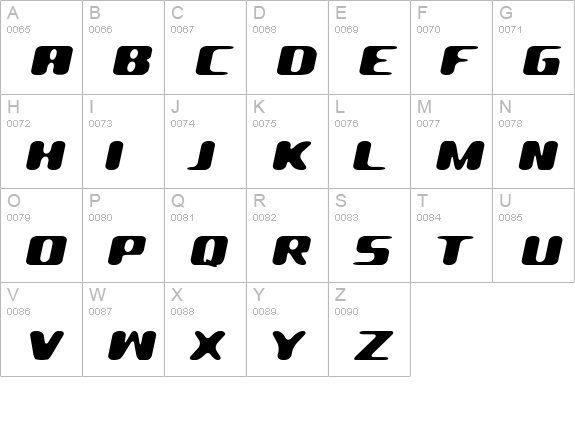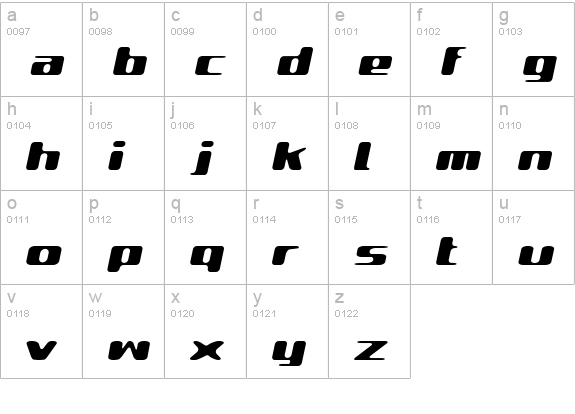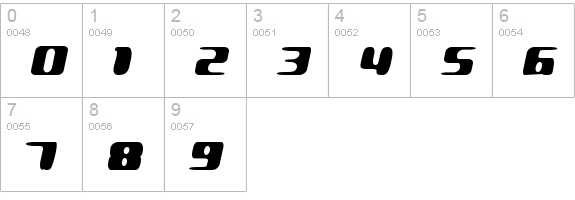
LBIlovely bold italic Alp Font Details
LBIlovely bold italic Alp is a strong, high-contrast, italic variant in the LBIlovely typeface family \xE2\x80\x94 well suited to headlines, attention-grabbing titles, and strong calls-to-action.
Introducing the mesmerizing LBIlovely bold italic Alp font, a true masterpiece in the world of typography. This font effortlessly blends elegance and boldness, creating a visual experience that is both captivating and enchanting. With its exquisite curves and alluring strokes, LBIlovely bold italic Alp font is sure to leave a lasting impression on any design project. Whether it is used for headlines, logos, or even invitations, this font adds a touch of sophistication and charm that is simply unmatched. What sets LBIlovely bold italic Alp font apart is its versatility. It effortlessly transitions from modern to vintage, from minimalist to extravagant, making it the perfect choice for any creative endeavor. Its bold and italic style brings a unique flair to any design, elevating it to new heights of creativity. And the best part? LBIlovely bold italic Alp font is freely available to download at FontsMarket.com. Yes, you read that right - this exceptional font can be yours at absolutely no cost. It's a rare gem in the world of typography, where quality fonts often come with a hefty price tag. So why wait? Visit FontsMarket.com today and unleash your creativity with the LBIlovely bold italic Alp font. Elevate your designs, captivate your audience, and make a bold statement - all with this stunning font that is as free as it is breathtaking.